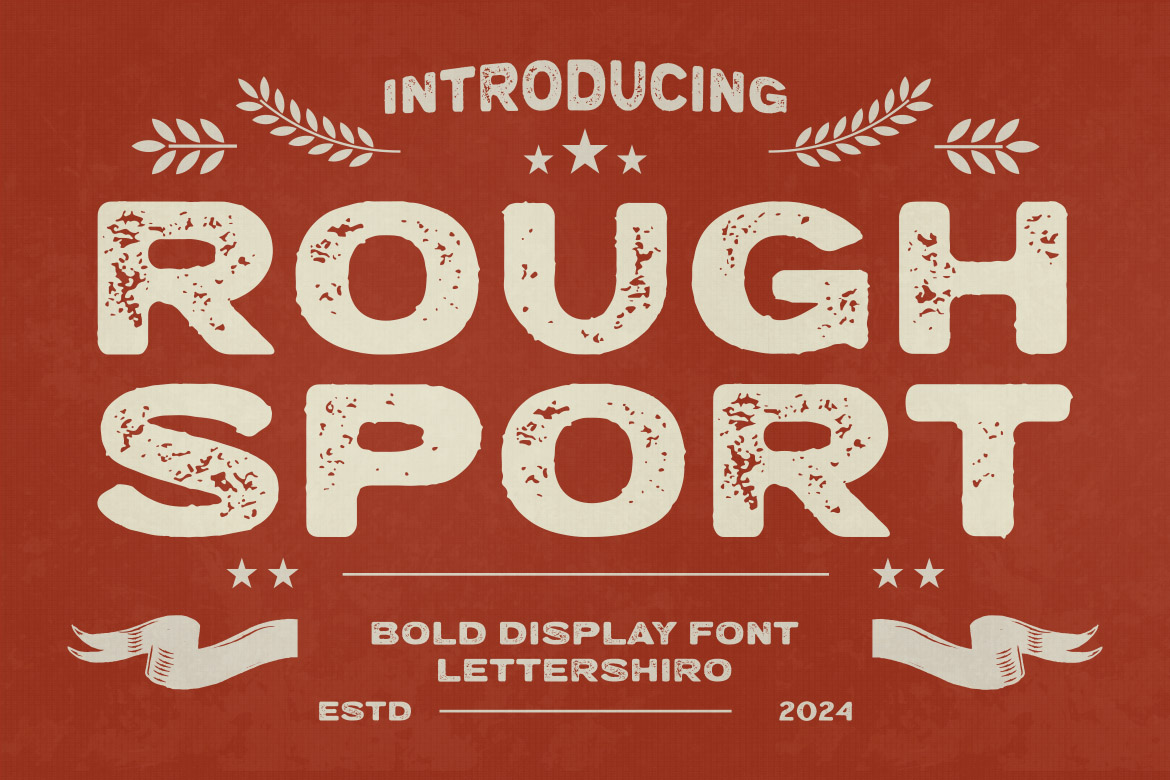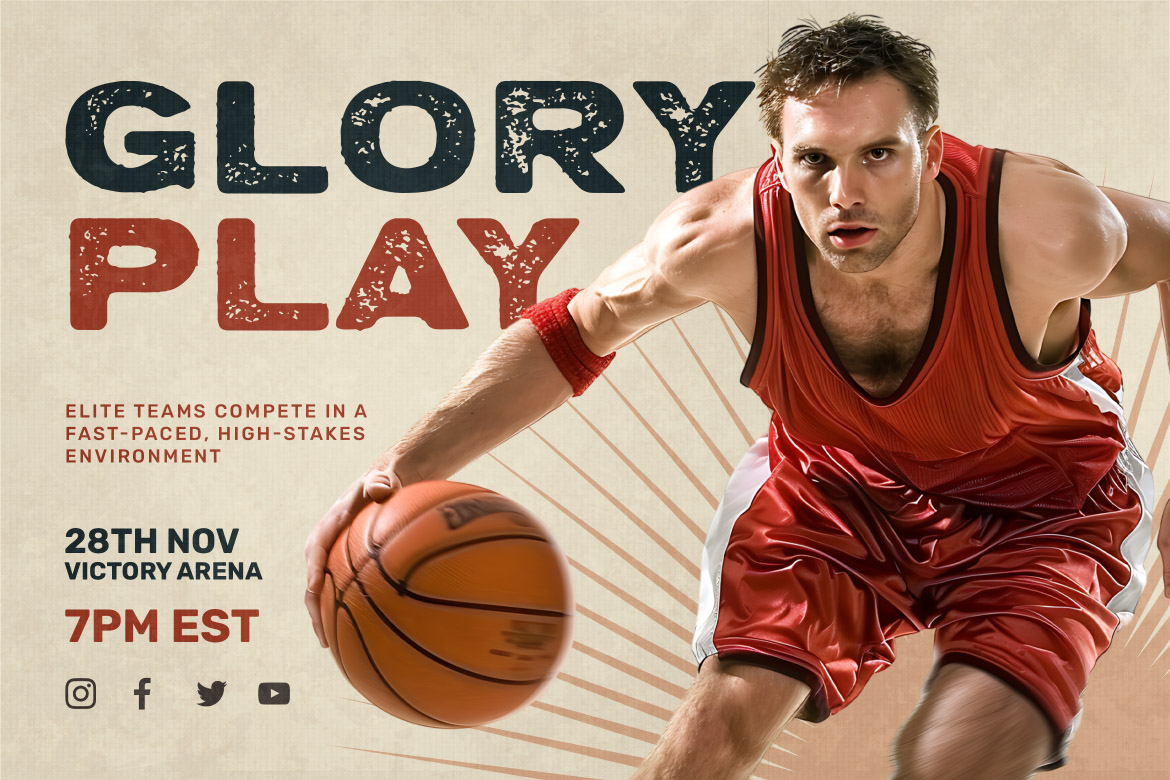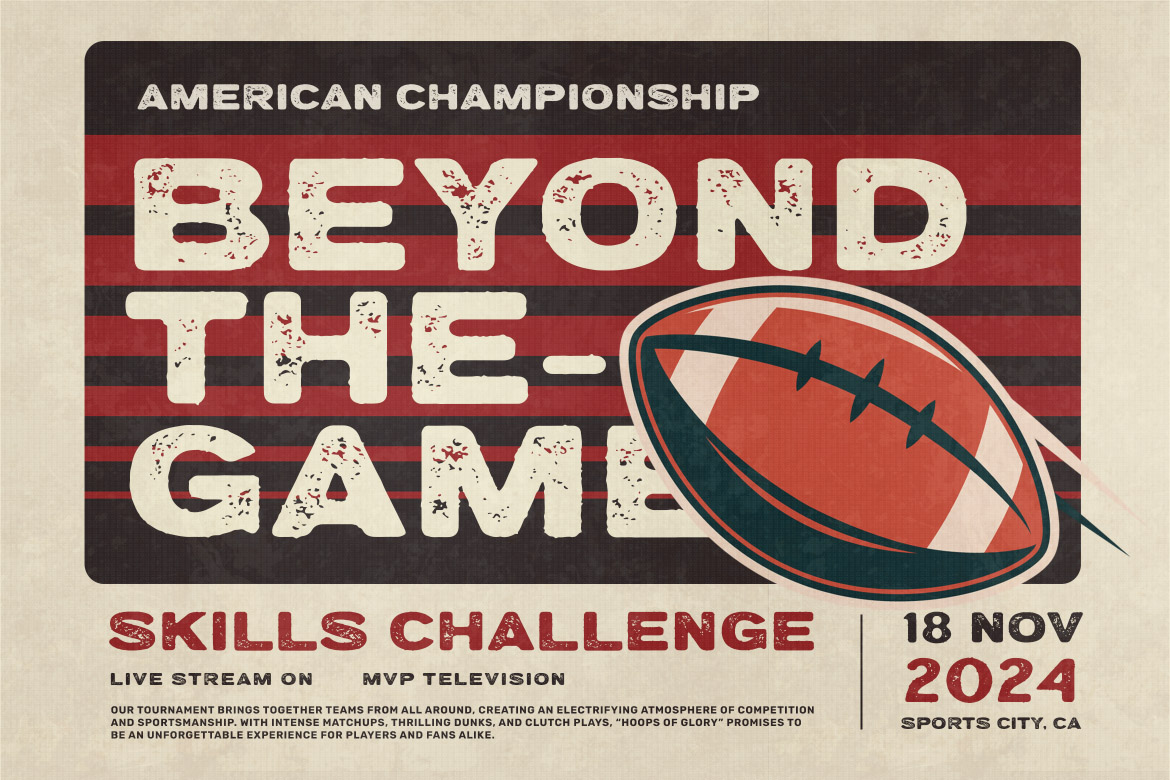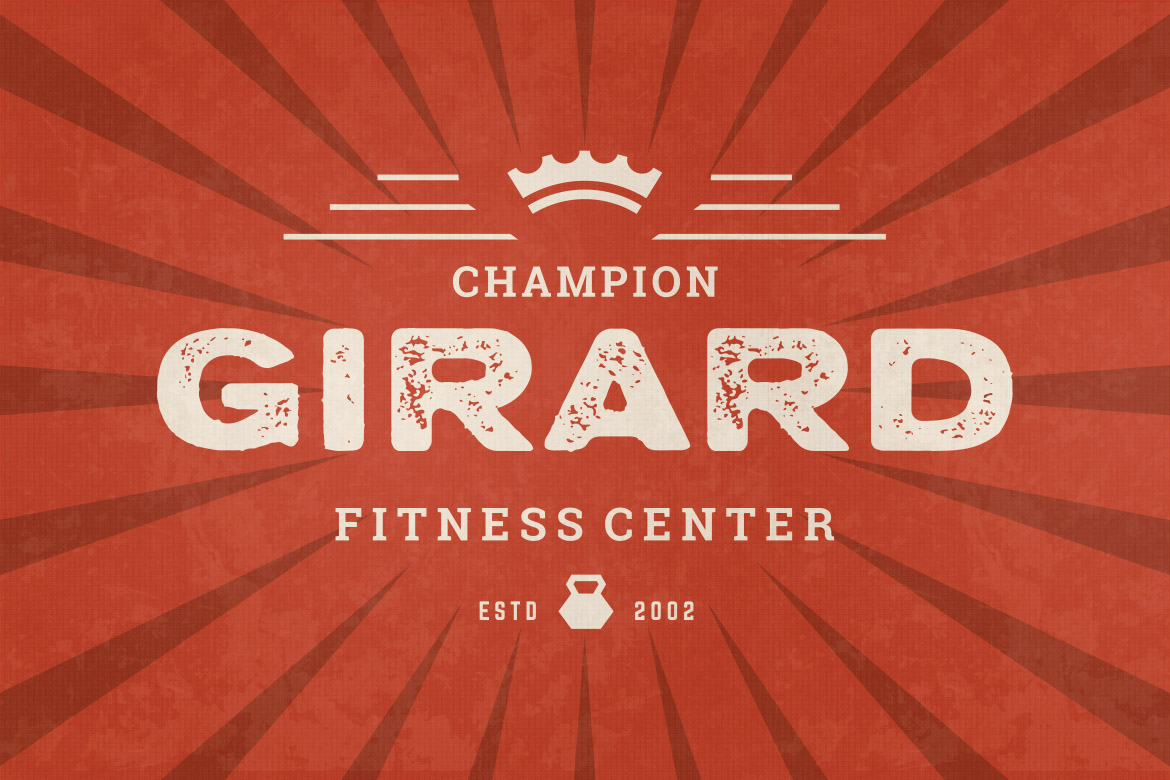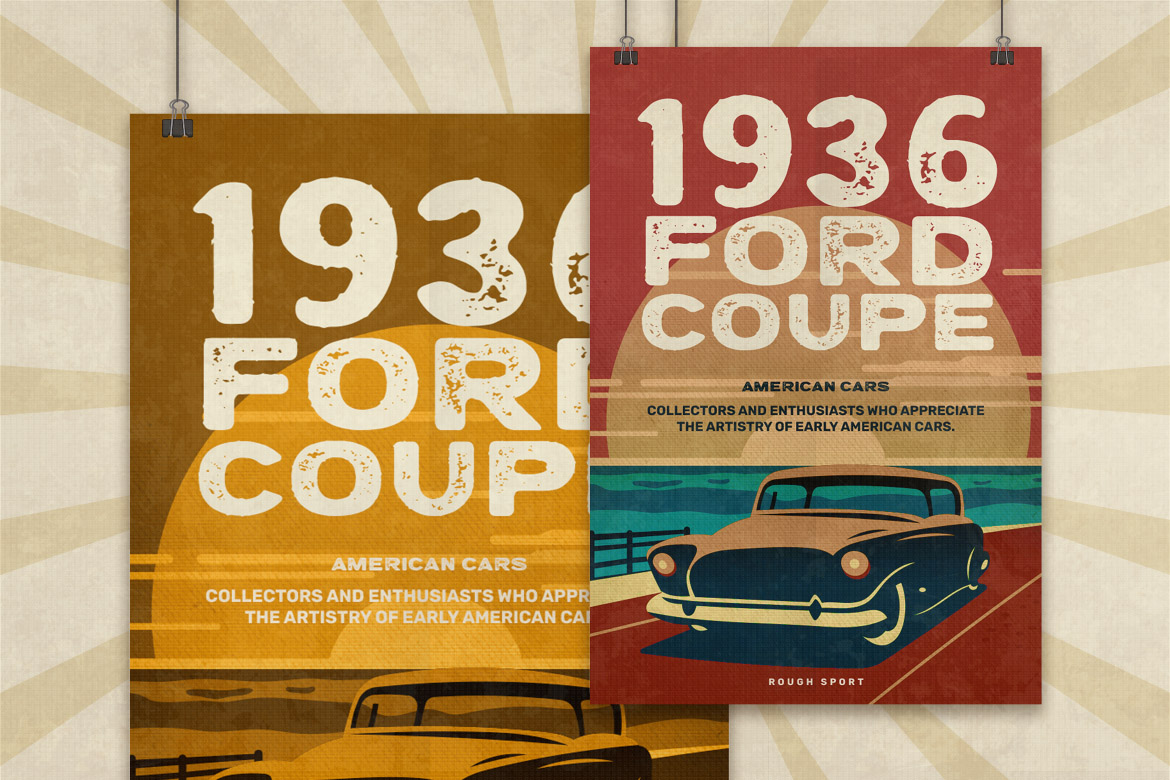
Rough Sport is a bold display font that exudes ruggedness and strength. With its textured, distressed look, this font is perfect for sports-related designs, posters, and branding that requires a touch of toughness and vintage flair. Whether you're working on a logo, merchandise, or an eye-catching headline, Rough Sport delivers a powerful impact with its bold, worn-in style.